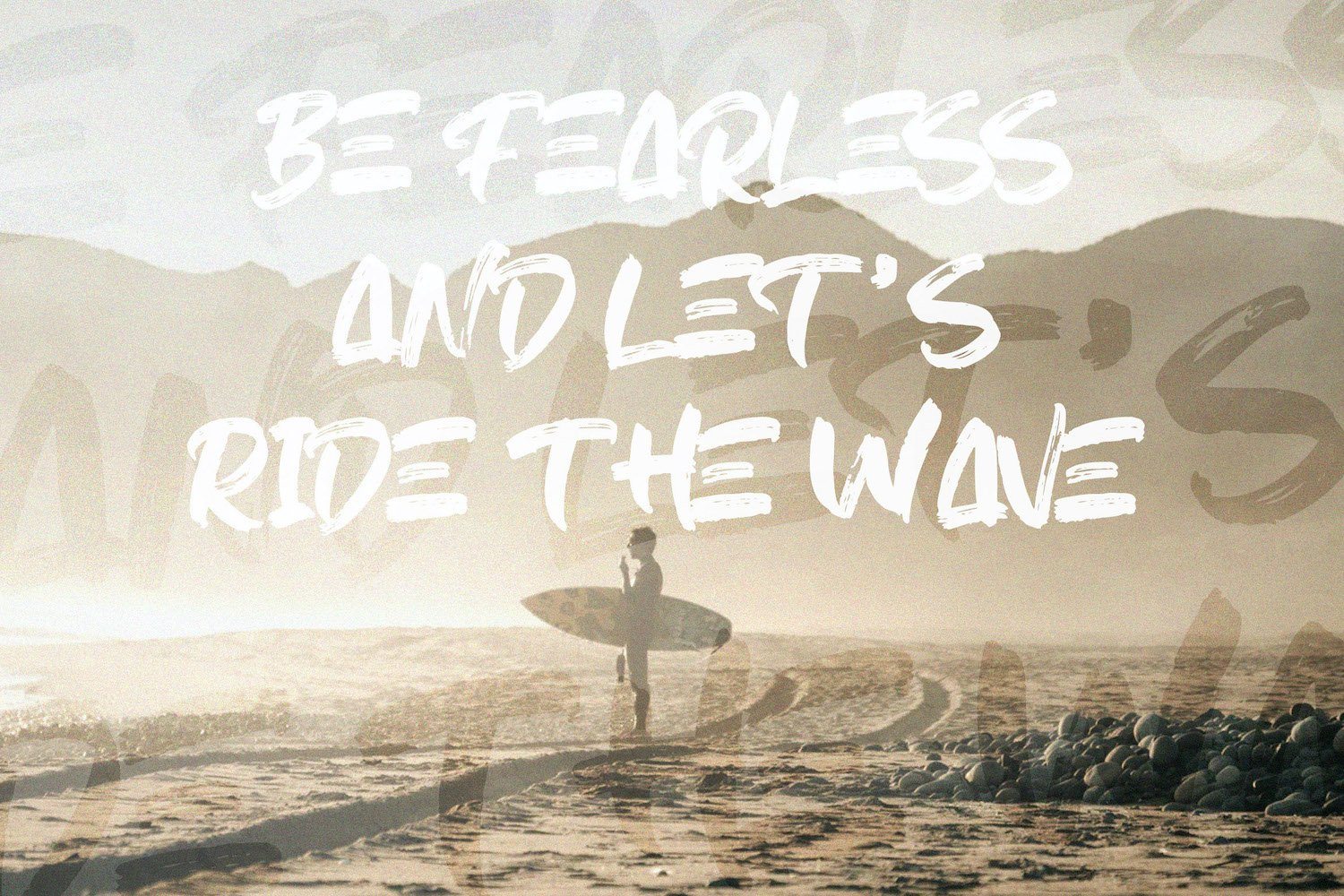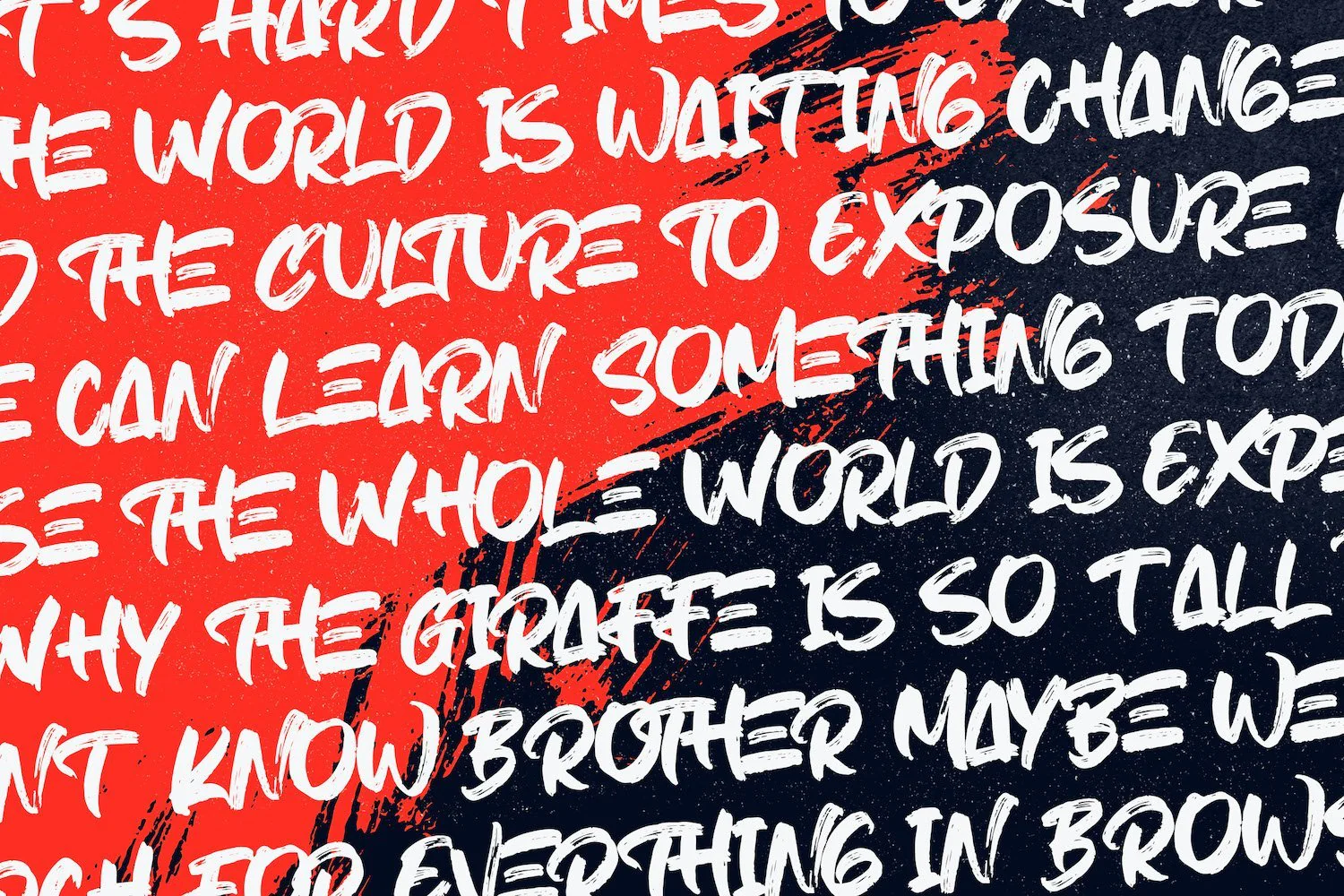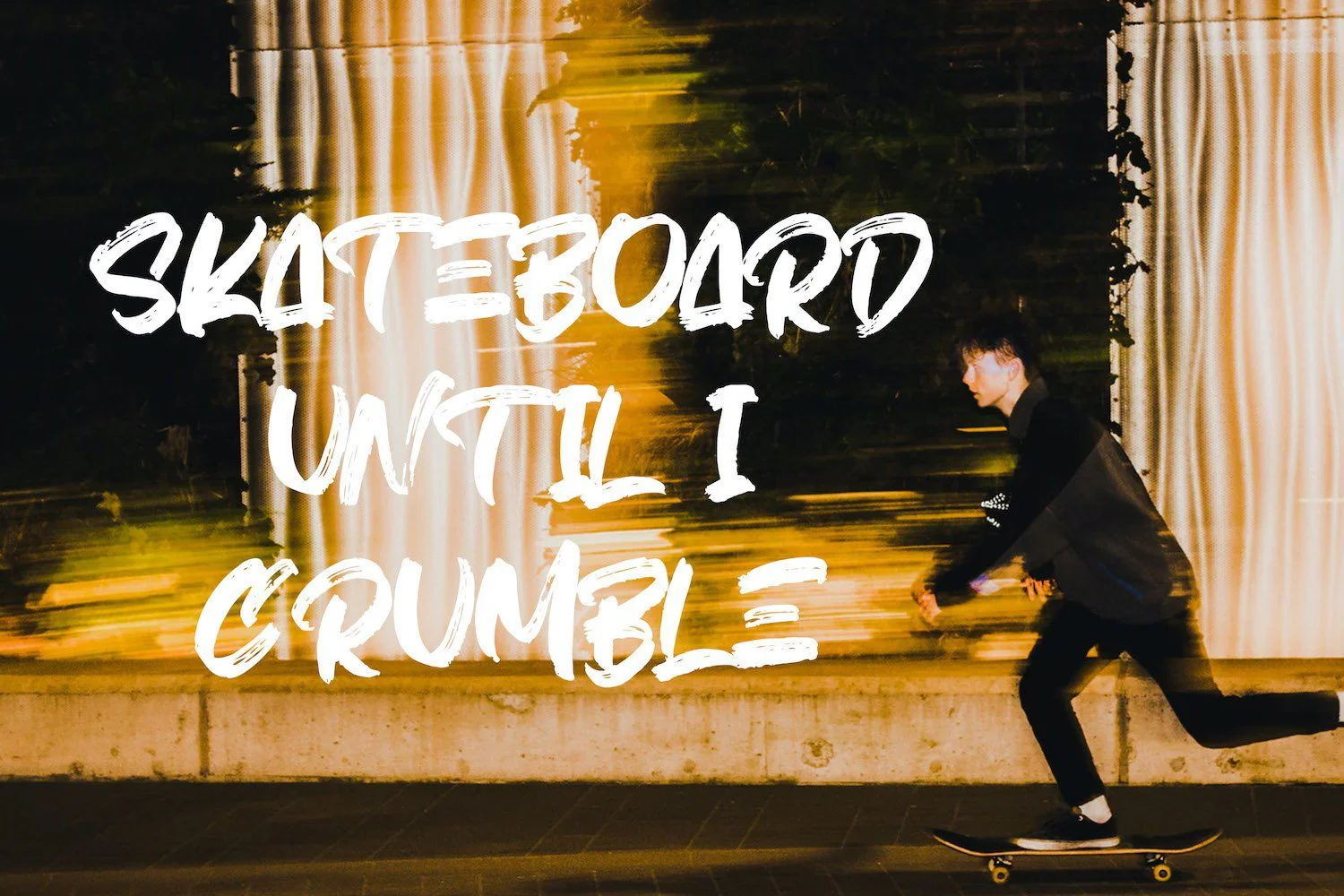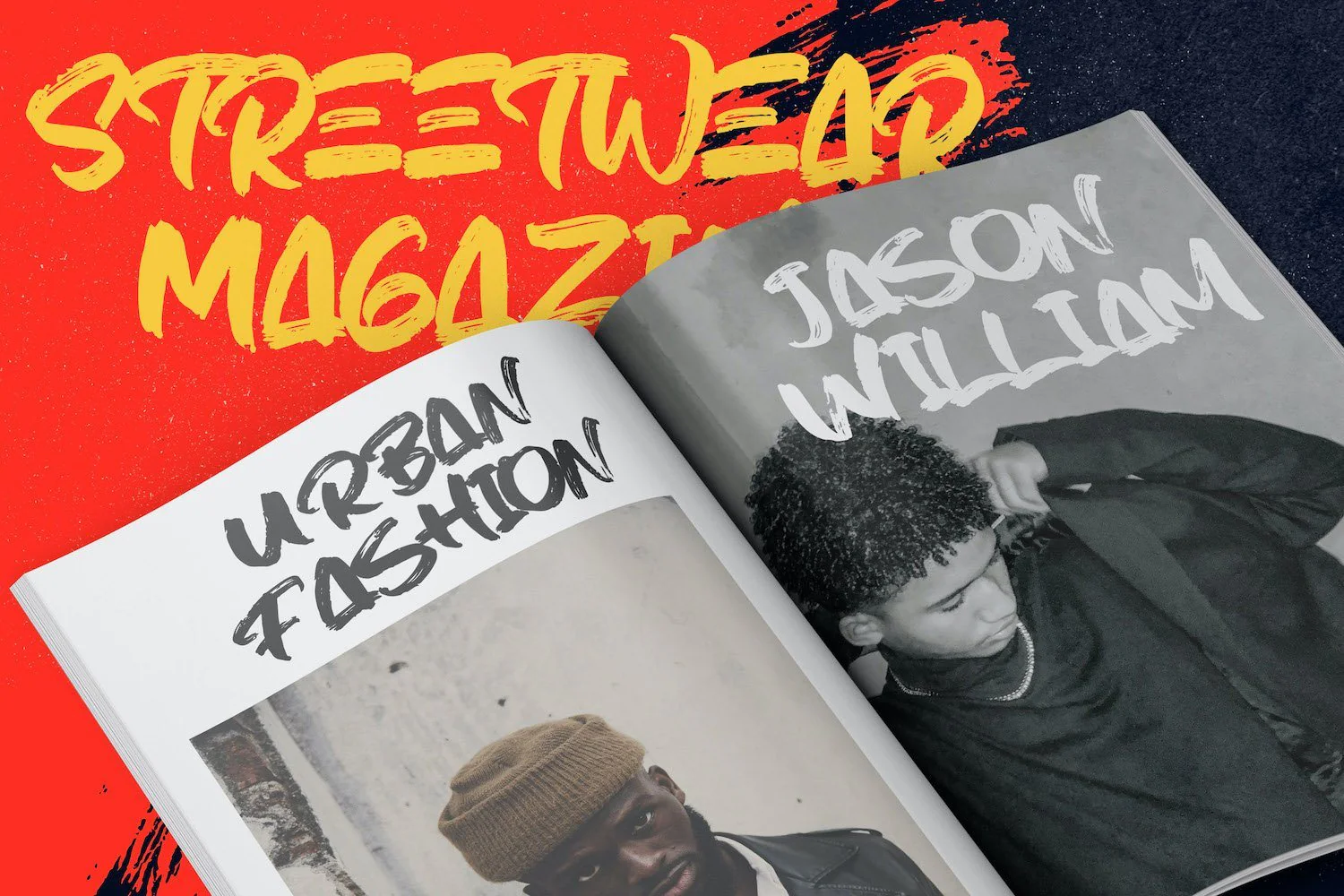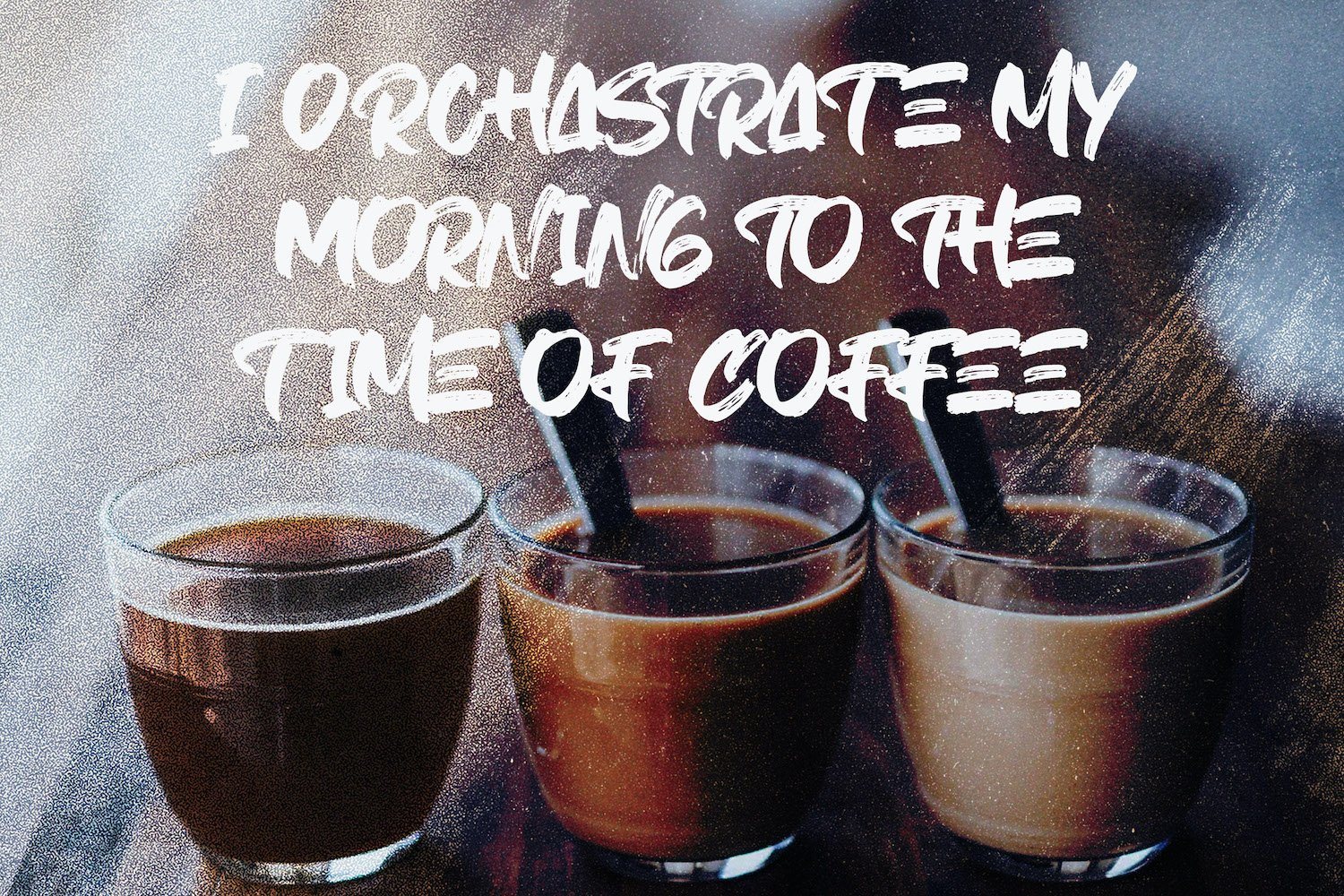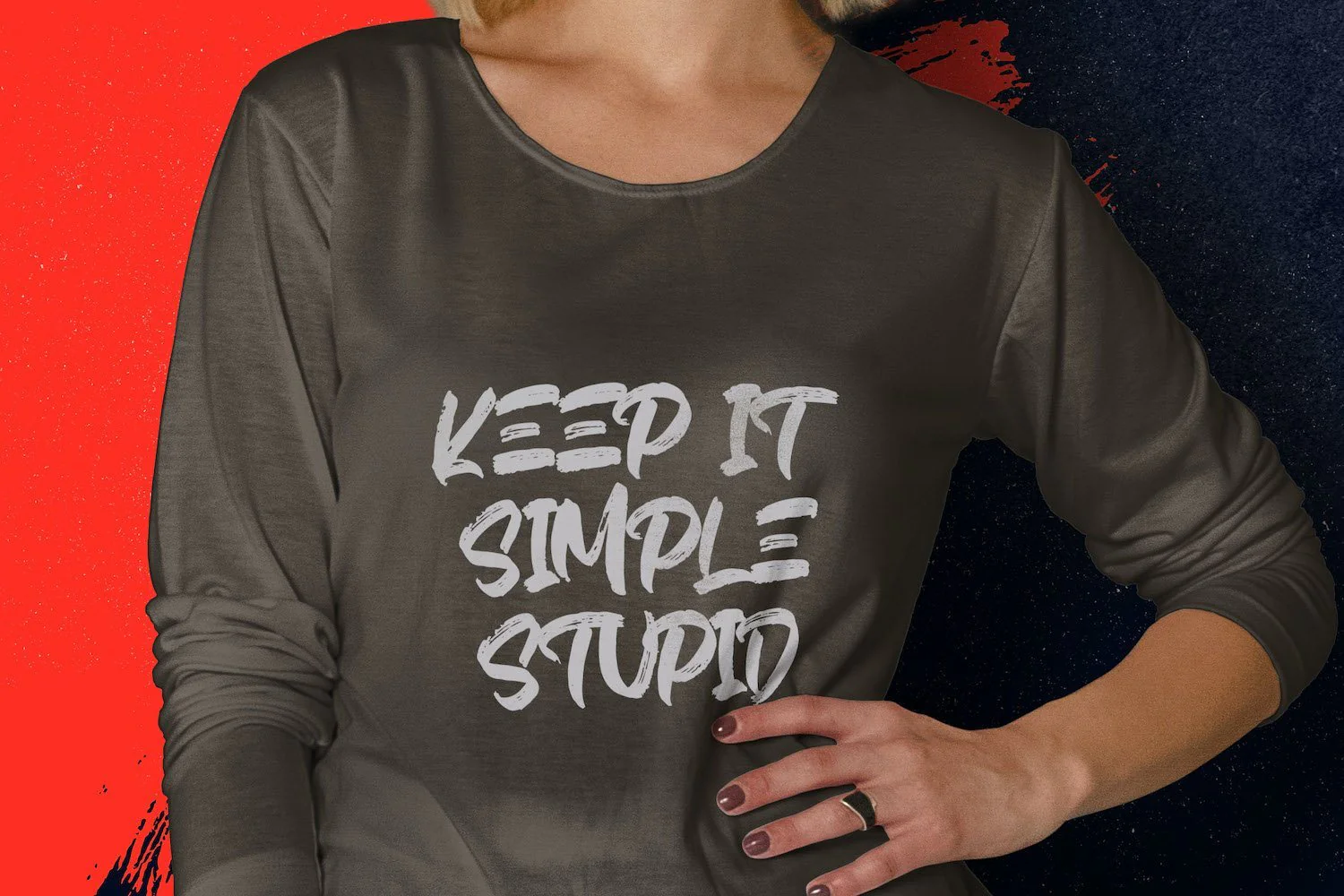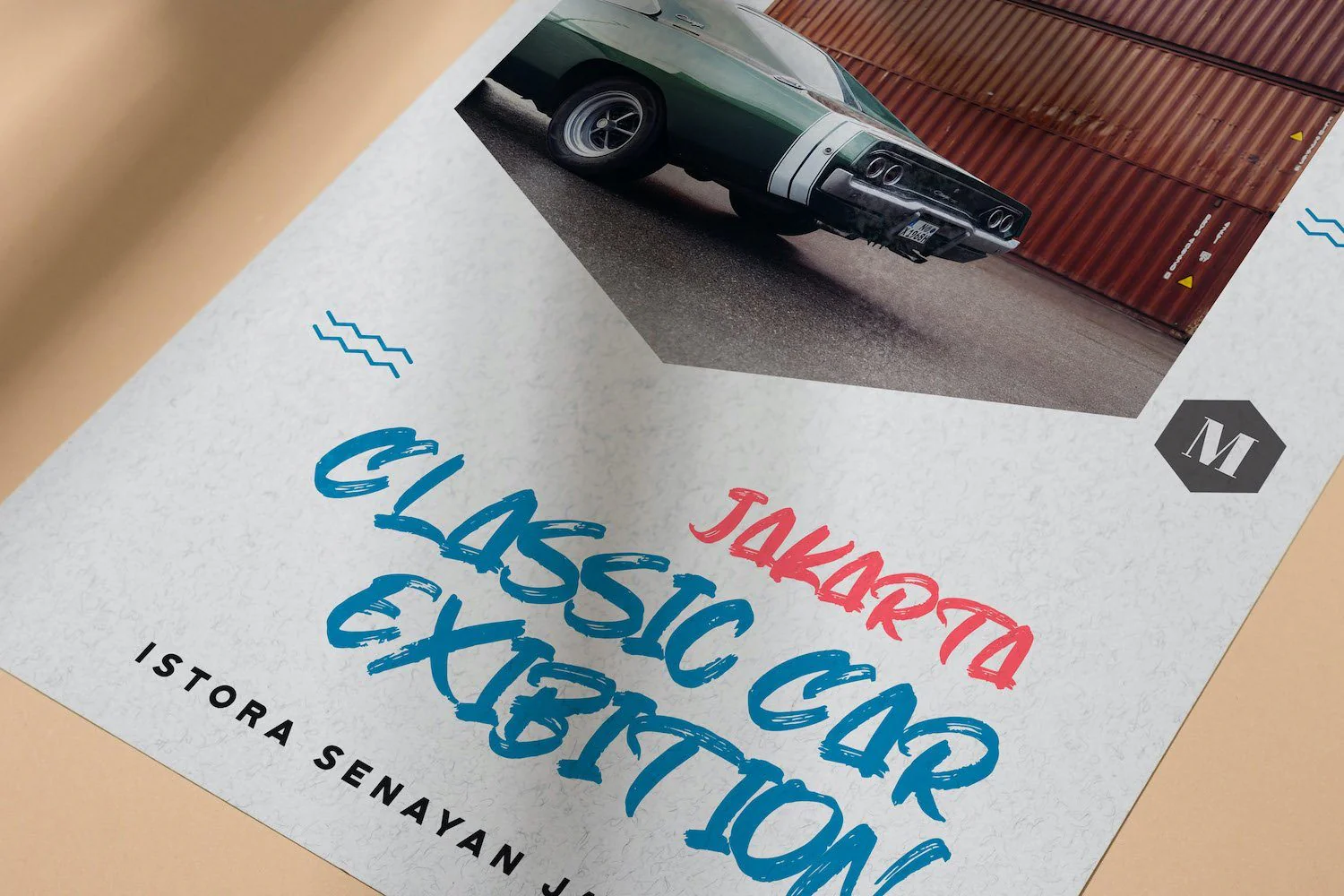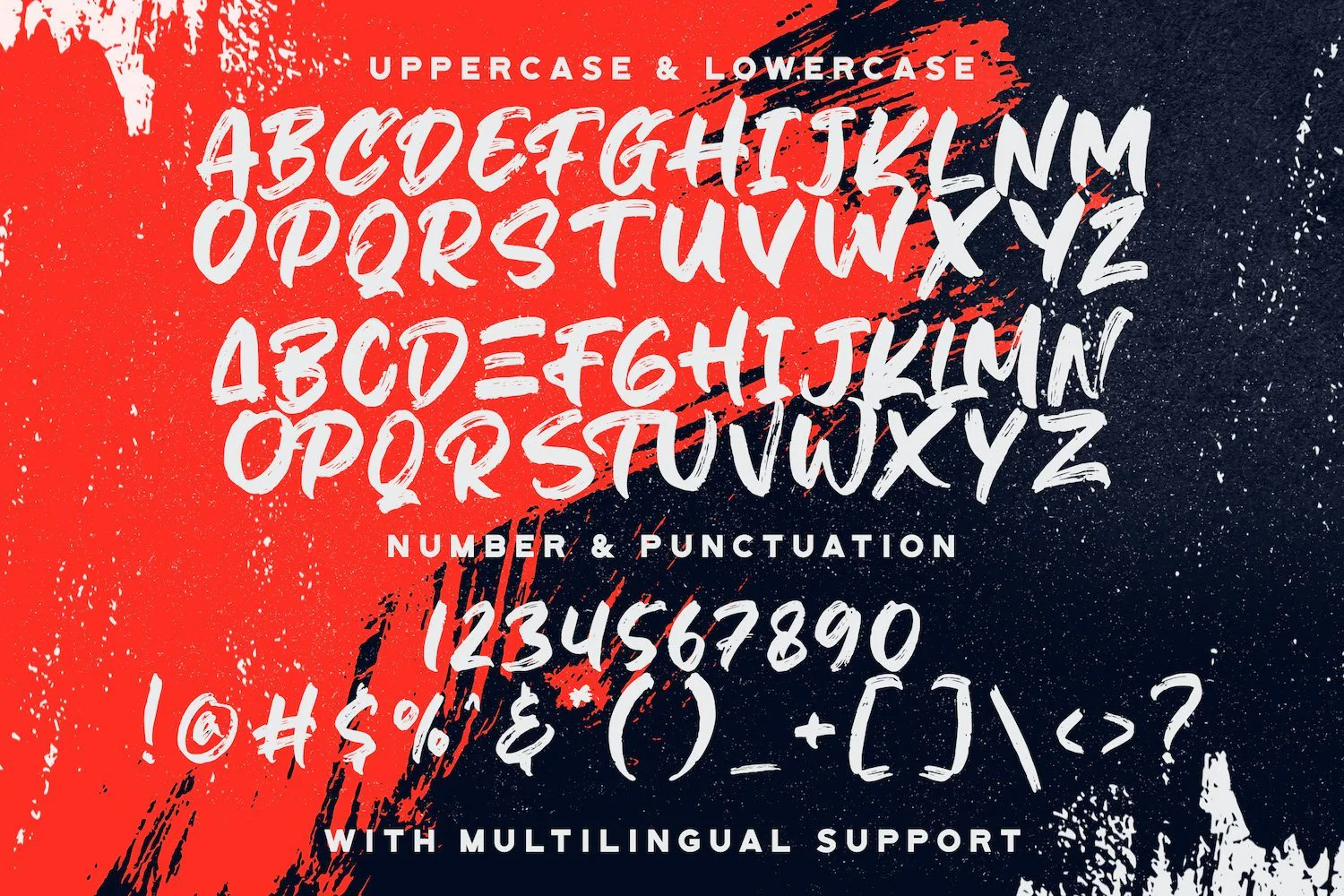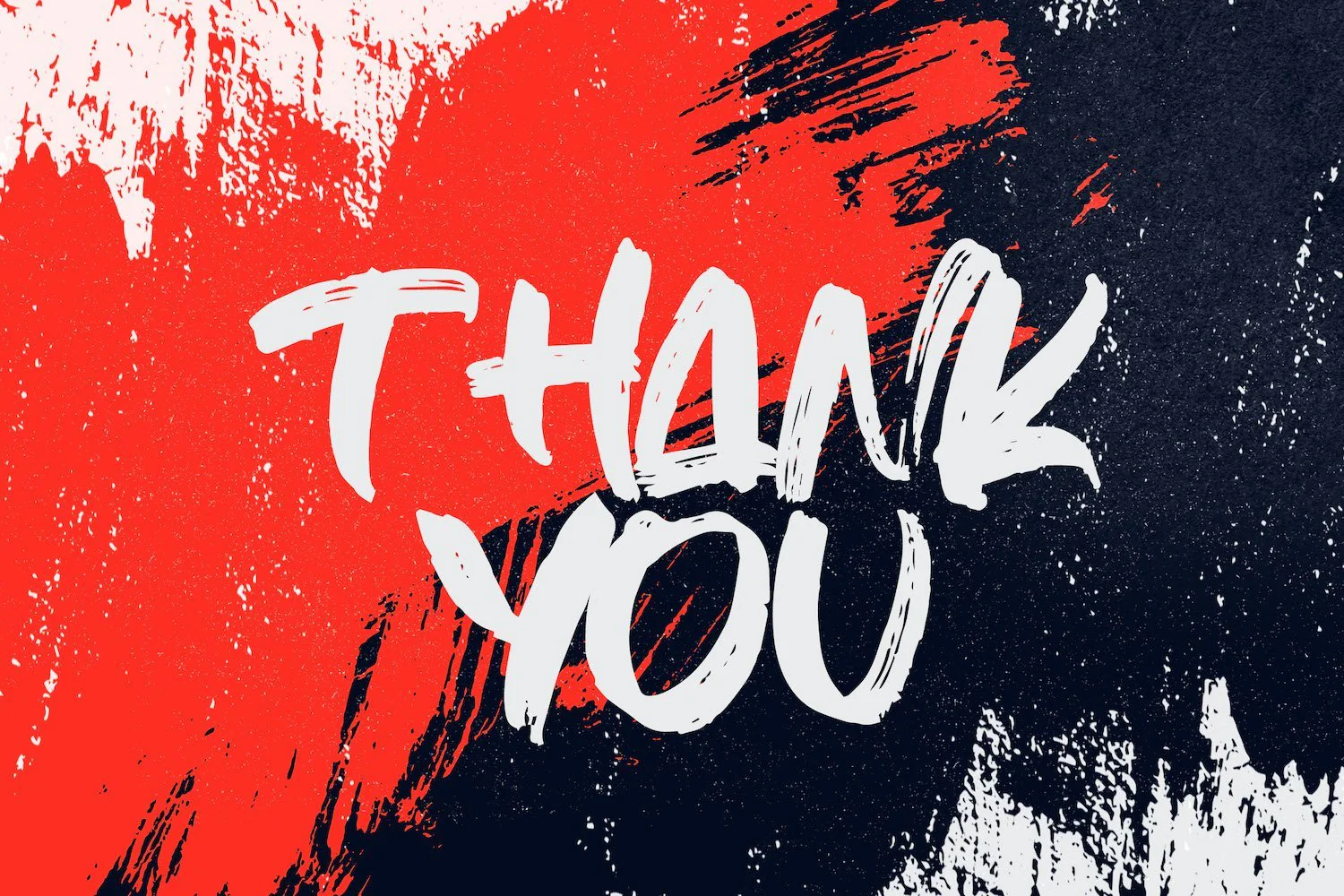
Hiruzen Exists - Textured Brush Font
Introducing Hiruzen Exists - Textured Brush Font
Hiruzen Exists is a textured handbrush font. Get inspired by its unique and beautiful style and add it to your favorite designs!
Introducing Hiruzen Exists - Textured Brush Font
Hiruzen Exists is a textured handbrush font. Get inspired by its unique and beautiful style and add it to your favorite designs!